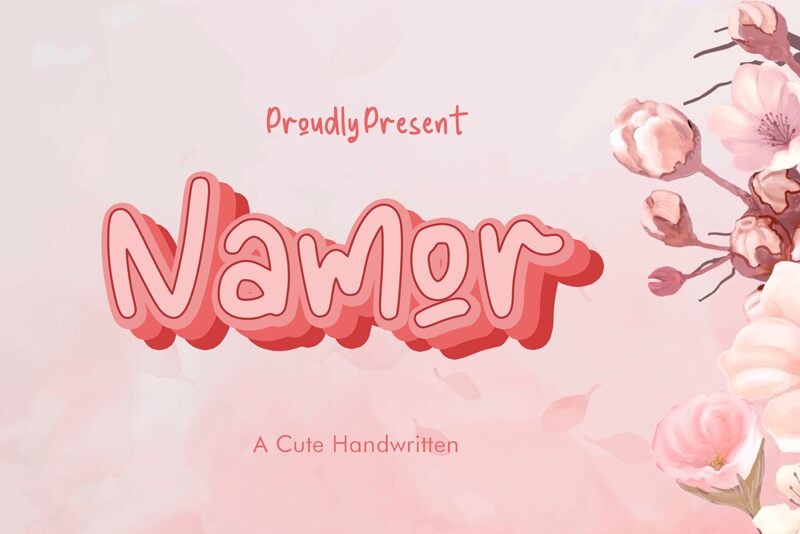
Namor font by Faras Dina is a free font with a lovely casual handwritten design. Boasting a friendly and approachable style, this font is inspired by penmanship. It feels energetic yet informal, youthful yet modern, making it a lovely pick for a variety of uses.
With a whimsical overall style, Namor font is a great choice for branding, packaging, short copy texts, website designs, and more. Use it for cartoons, e-books, and creative posters. Combine it with illustrations in children’s books, or use it in magazines and brochures about design, travel, or other creative topics.